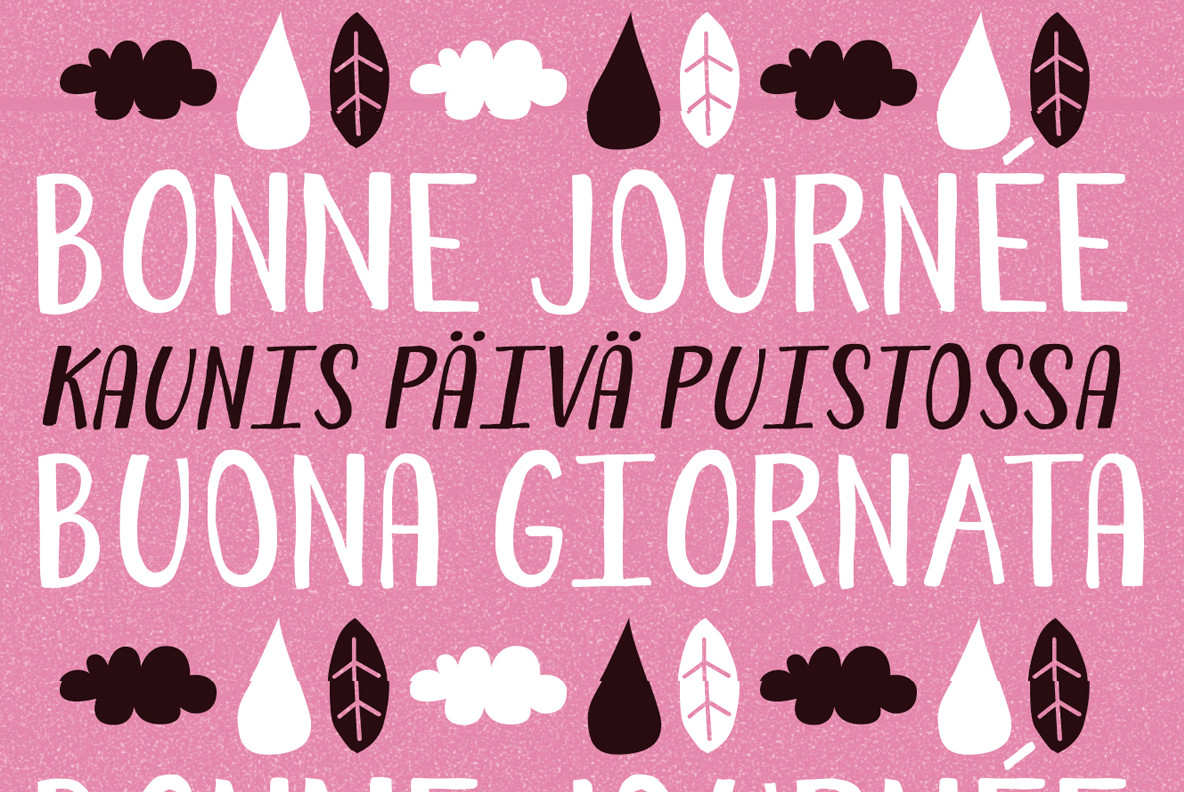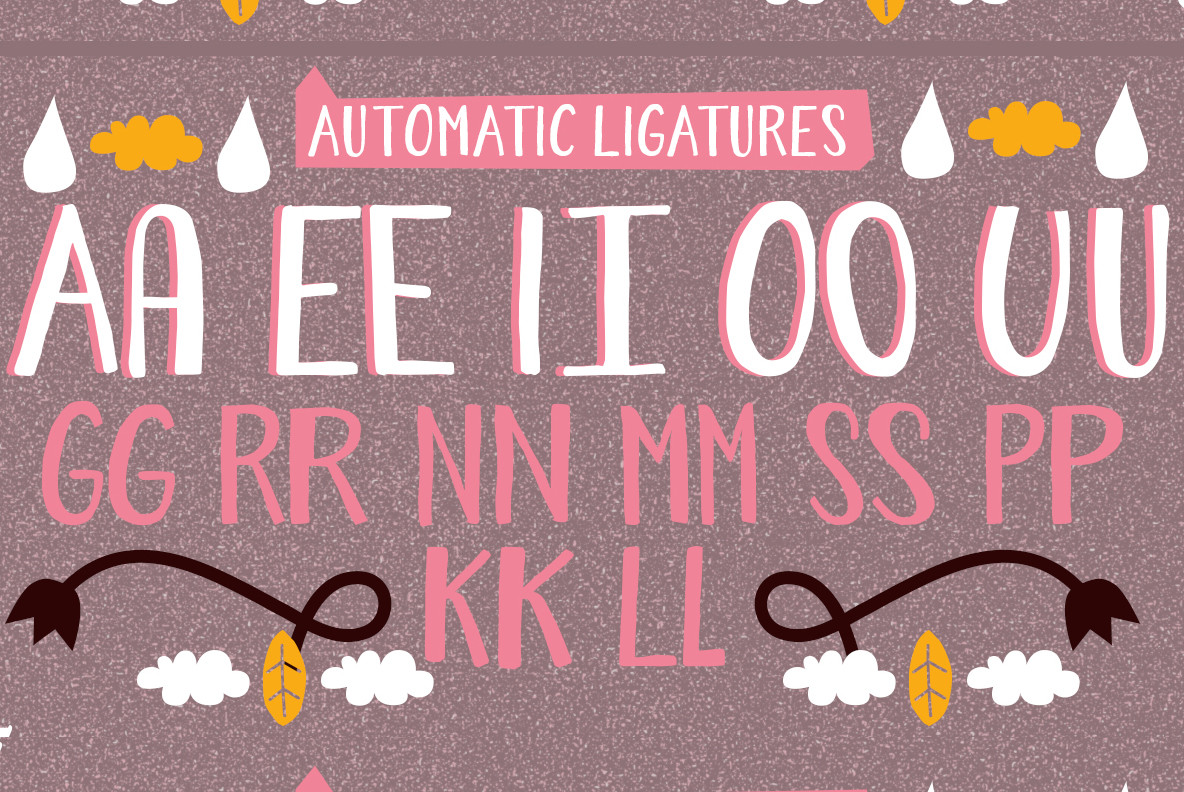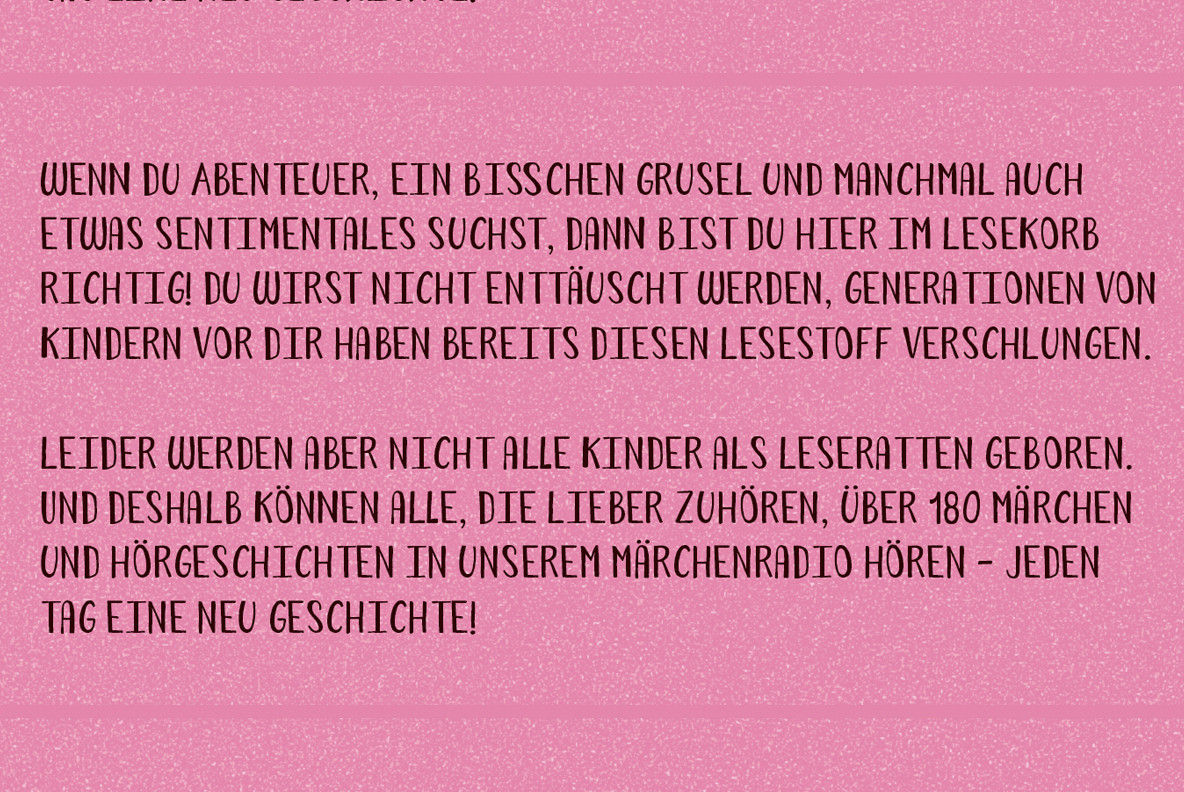
Forest Puyehue Font
Forest Puyehue
Forest Puyehue Italic
Forest Puyehue Dingbat
Forest Puyehue was inspired by the forests of southern Chile, known as "Puyehue." Forest Puyehue is a loose handmade design with variations such as italics and a set of ornaments.